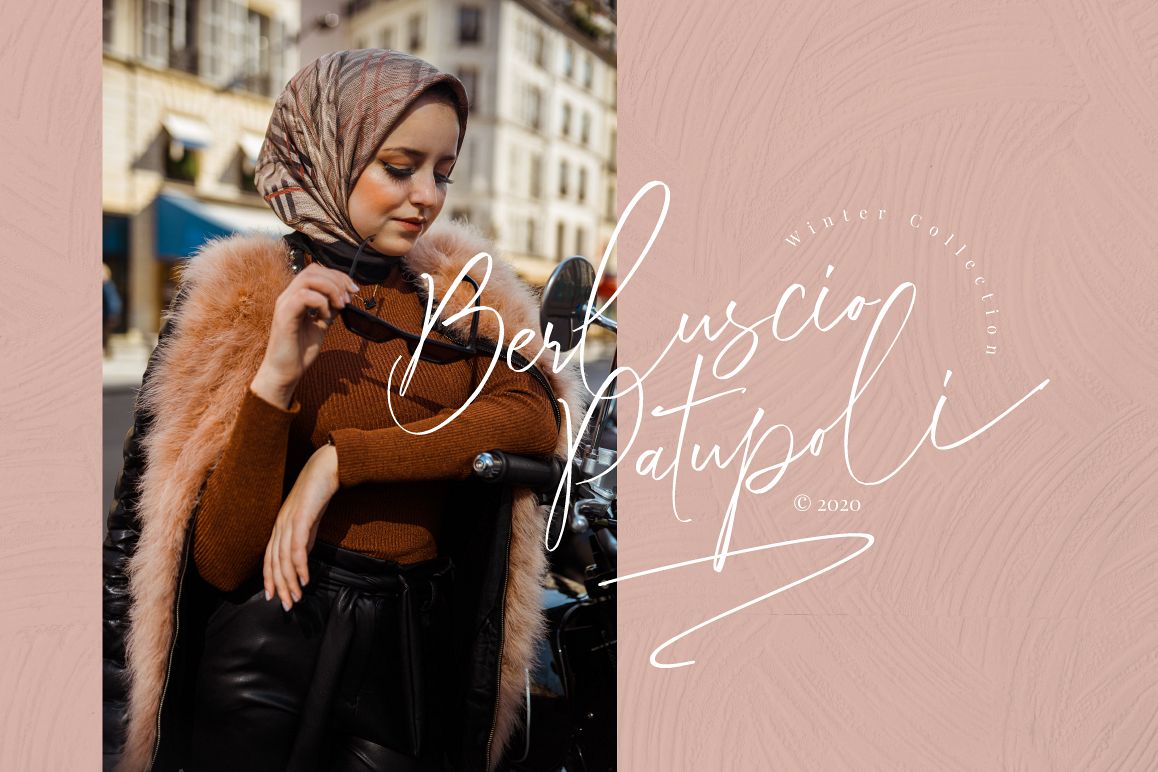
Auston - Modern Calligraphy
Auston
Auston is a beautiful, modern and elegant script. Smoothly flowing, perfect for designing blog logo, website logo, print ads, book covers, film covers, apparel, cards, logos, posters, etc. Opentype features gives you more alternatives in designing.